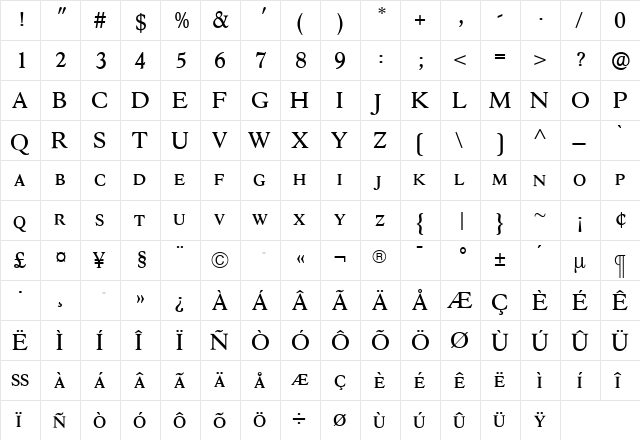
HessOldStyleExpert Regular
Design Context for HessOldStyleExpert Typeface
HessOldStyleExpert brings classic typographic sensibility to the table — its serifs and measured letterforms reflect centuries of print heritage.
Pro Tip: Use HessOldStyleExpert for editorial body copy and considered headline work. Pair with a neutral sans for UI elements or captions to create a classic hierarchy.